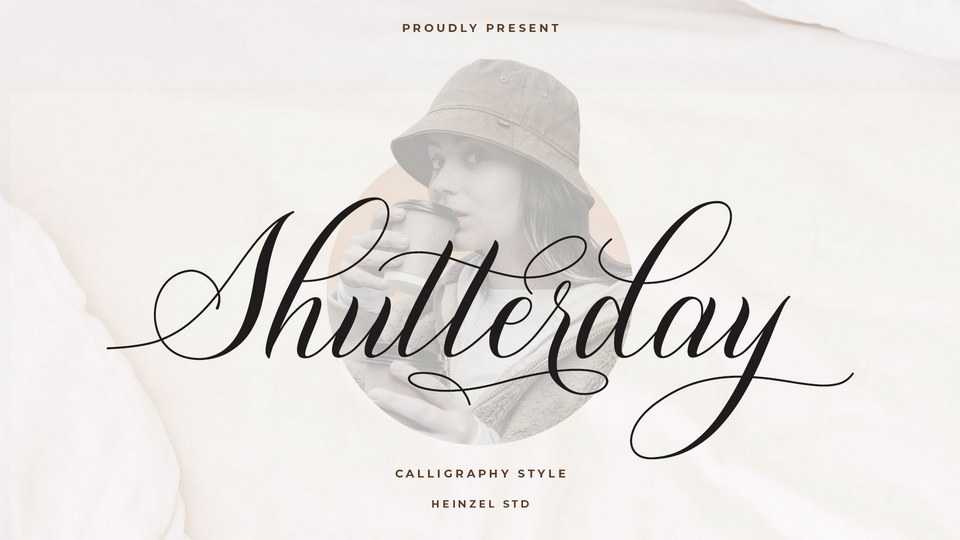
Shutterday Script Font › Fontesk
Download Shutterday font, a beautiful and refined script, featuring a lovely flow. Shutterday has a classy, elegant and modern look that can be used for logos, branding, invitations, stationery, wedding designs, social media posts, and much more
Designer: Heinzel Studio